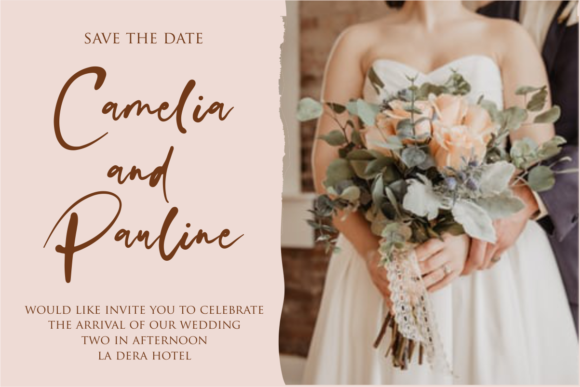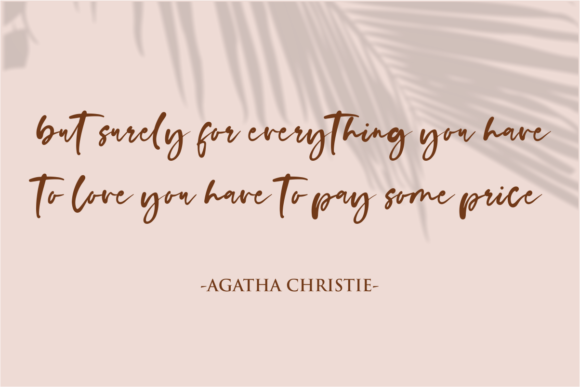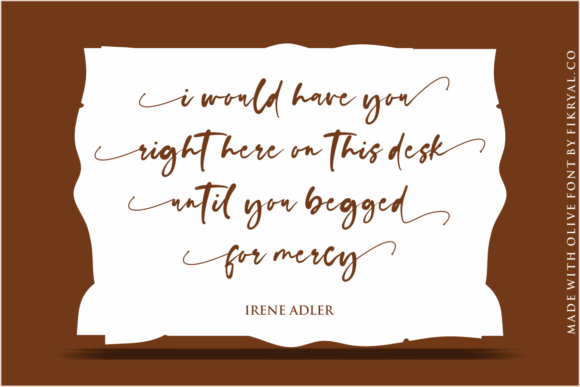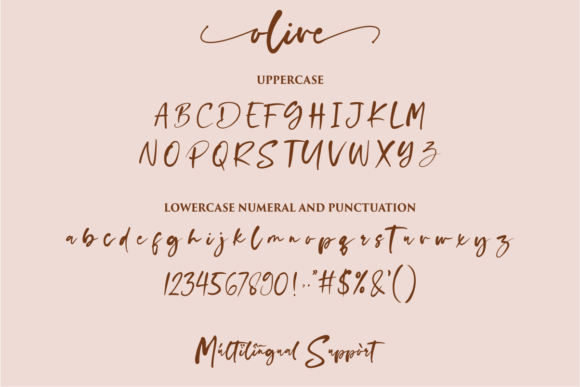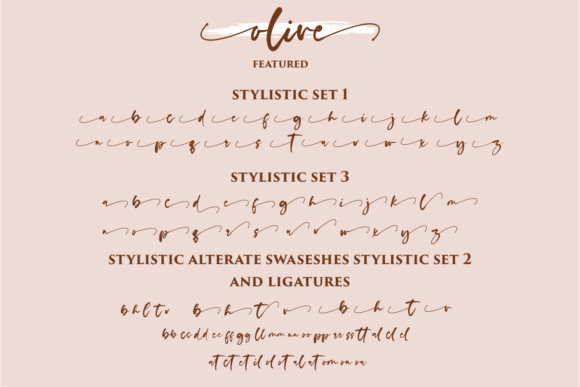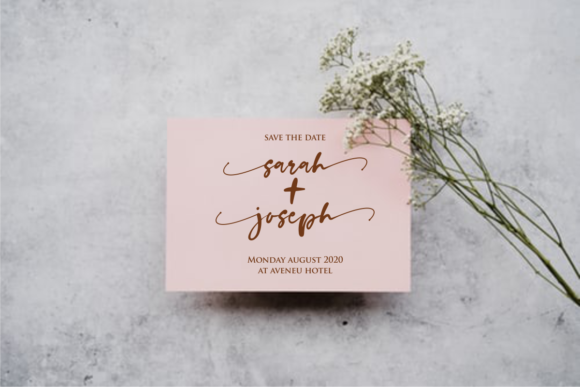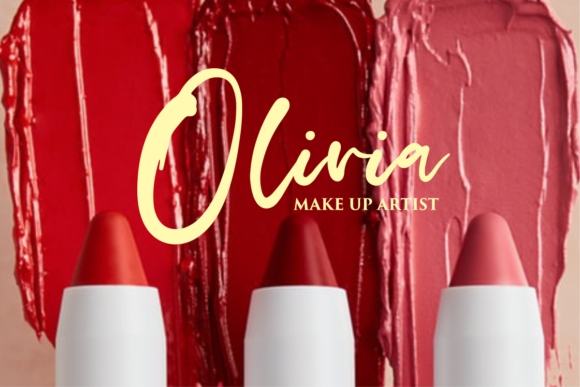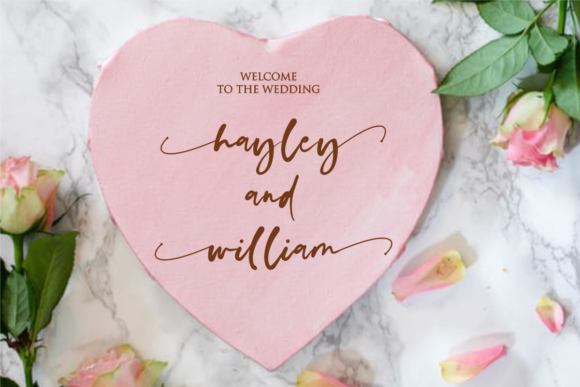
Olive Font
About Olive Font
Olive is authentic and charming, but also elegant. This versatile script font has a wide range of applications ranging from greeting cards to quotes, and is guaranteed to add a magical touch to your next design.
This font is PUA encoded which means you can access all of the stunning glyphs and swashes with ease! It also features a wealth of special features including alternate glyphs and ligatures.